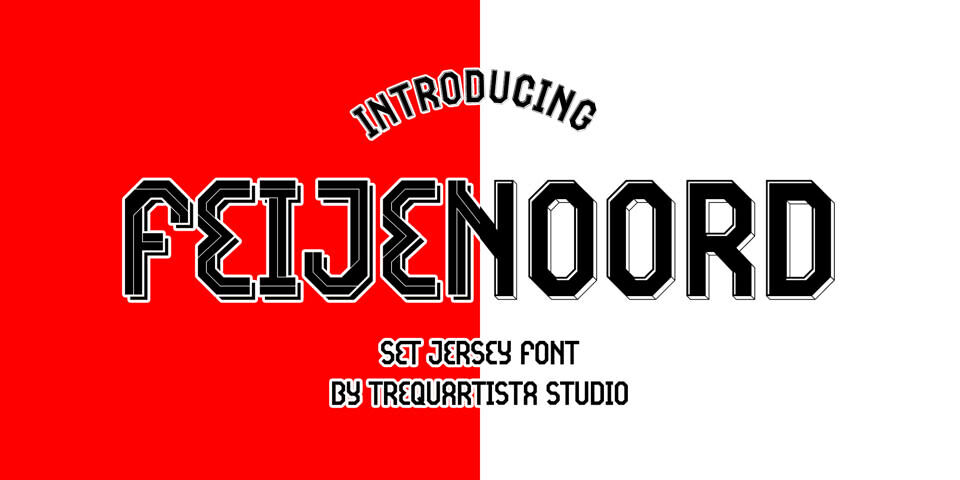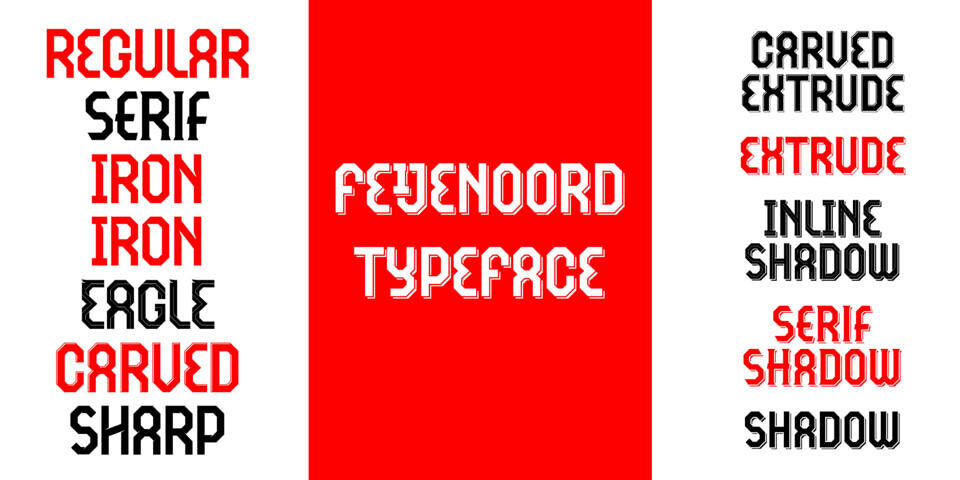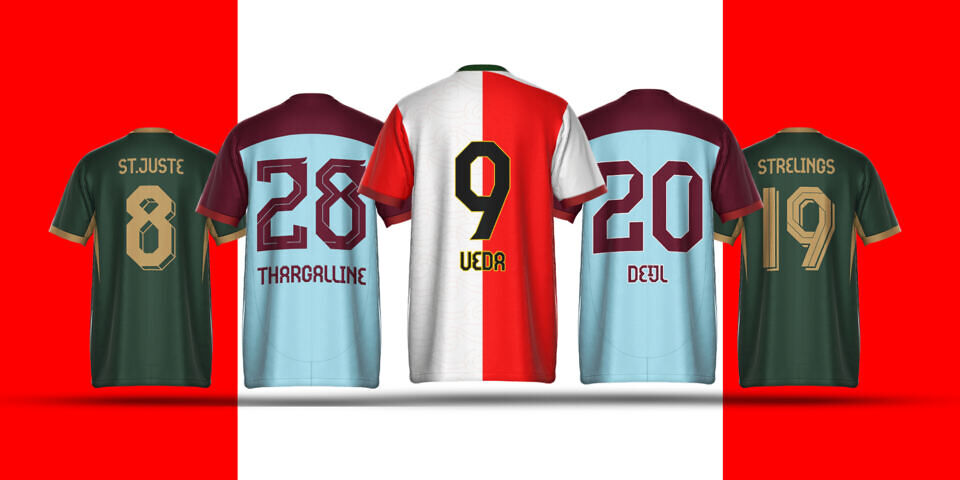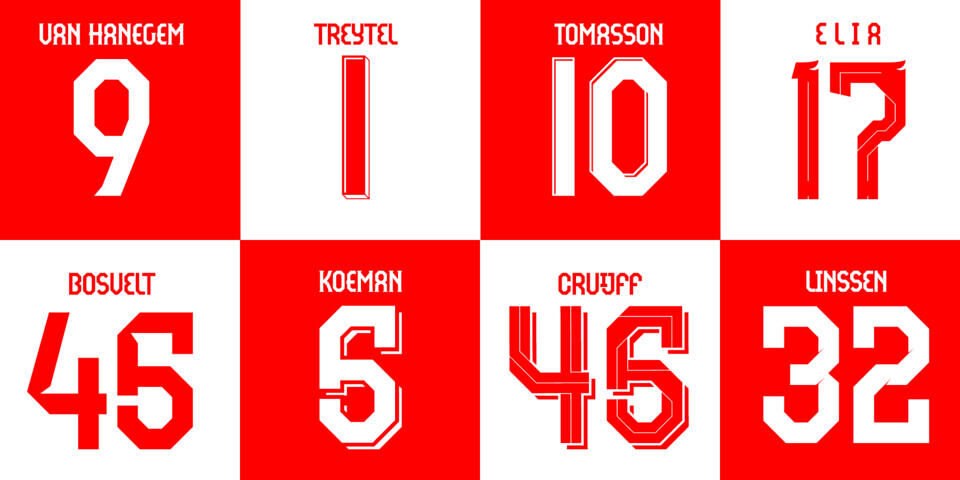
Feijenoord Font Family
Feijenoord is a bold sports display font inspired by the architectural strength and industrial spirit of Rotterdam. Its sharp angles and solid forms reflect the energy of stadium culture and the city’s modern skyline, creating a powerful typeface built for jerseys, team identities, and competitive sports design.
Rotterdam’s port is a symbol of strength, industry, and constant movement. Inspired by the bold structures and towering cranes that define the city’s skyline, Feijenoord captures this energy through sharp geometry and solid forms, creating a powerful typeface built for modern sports culture. The font includes multiple styles—regular, inline, carved, extrude, serif, and shadow—making it versatile for many creative projects.